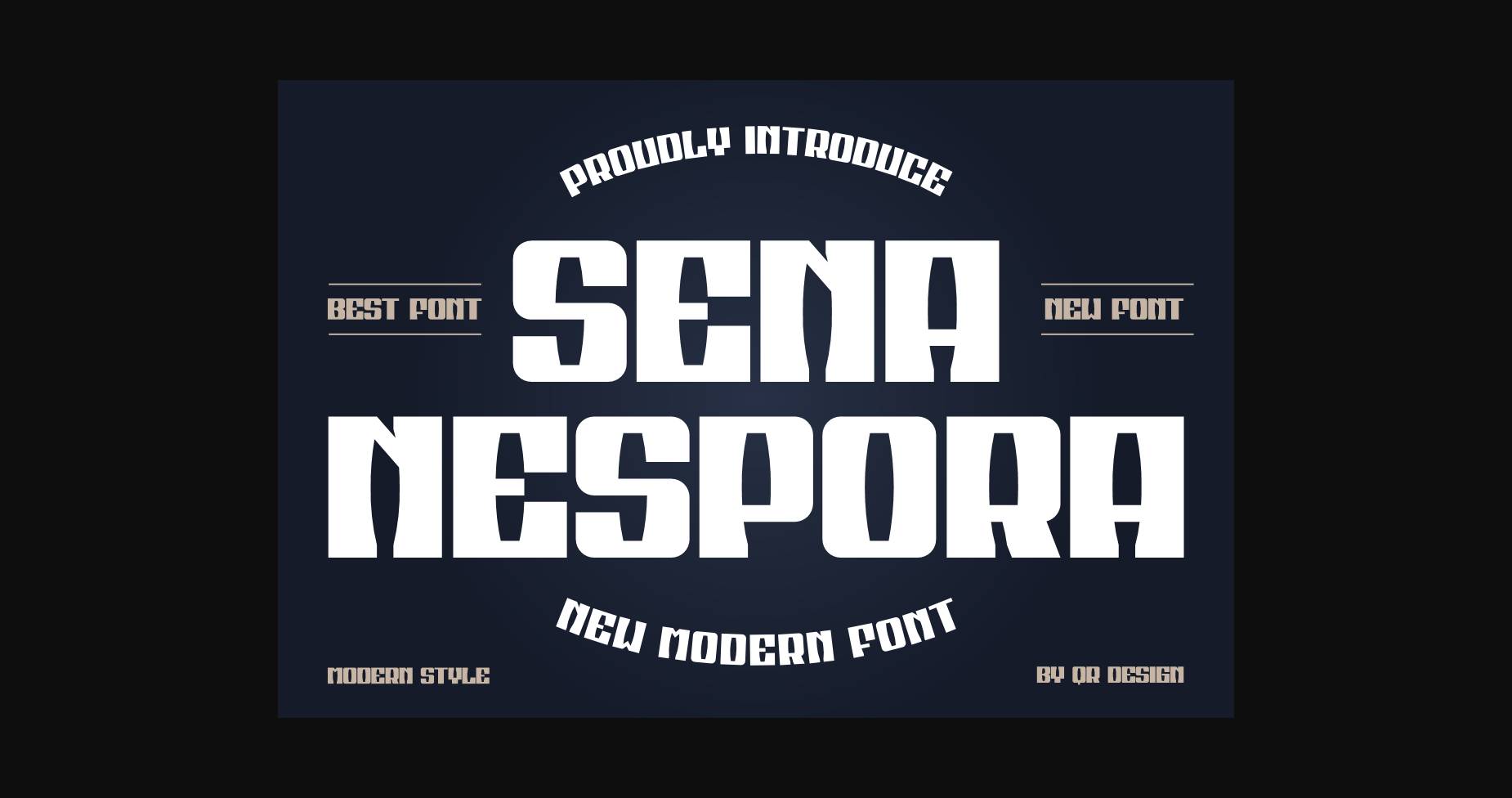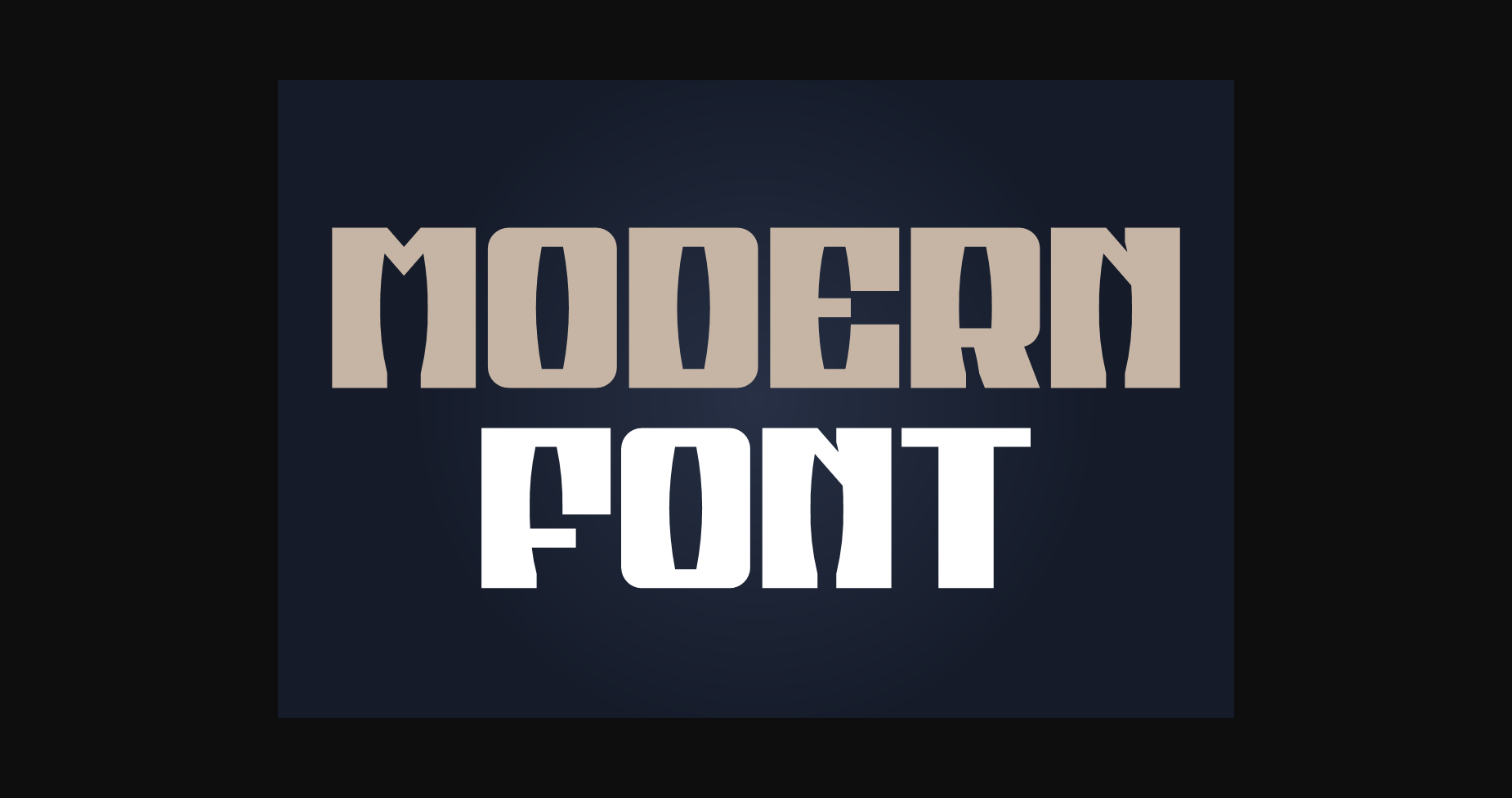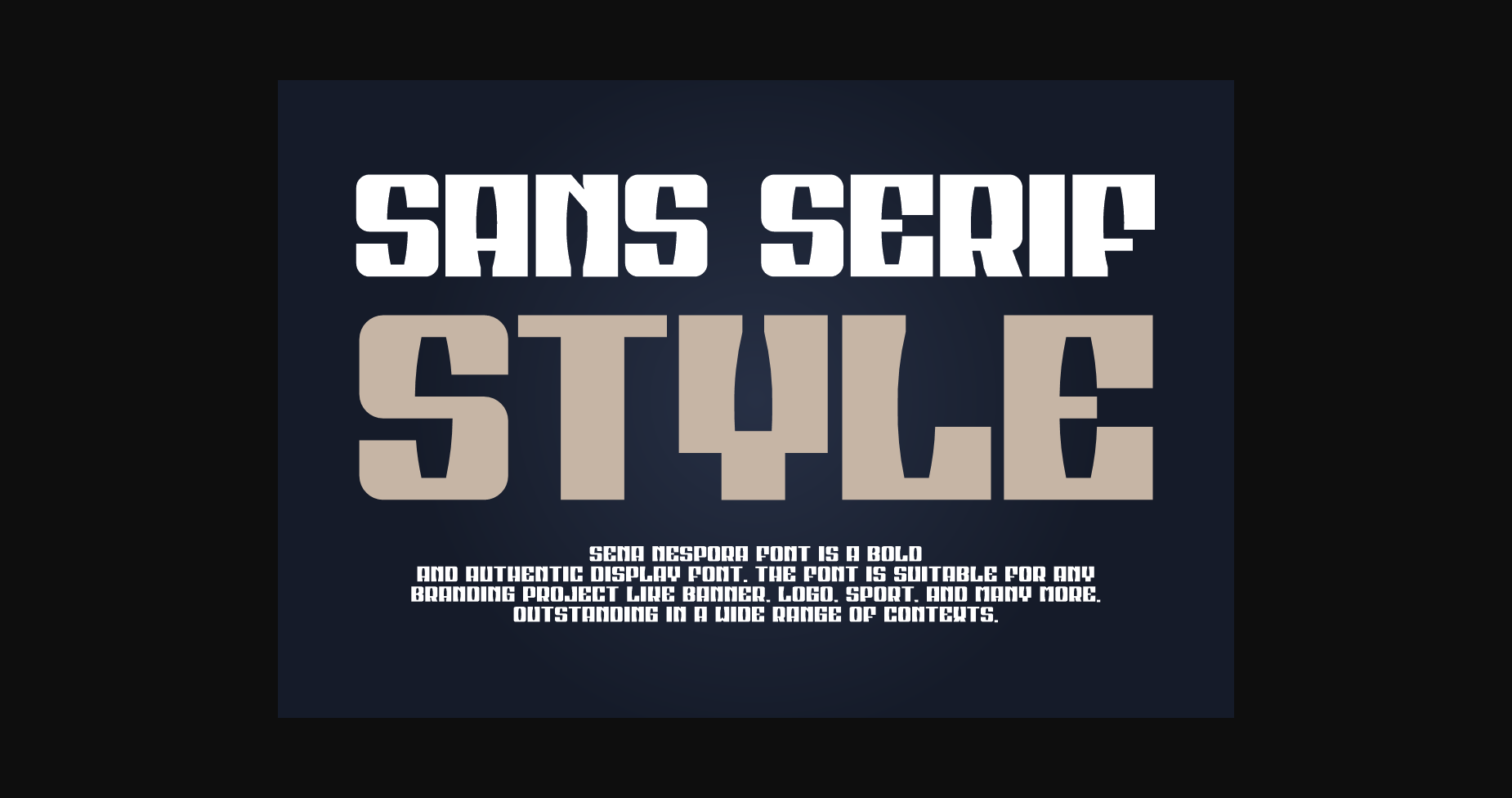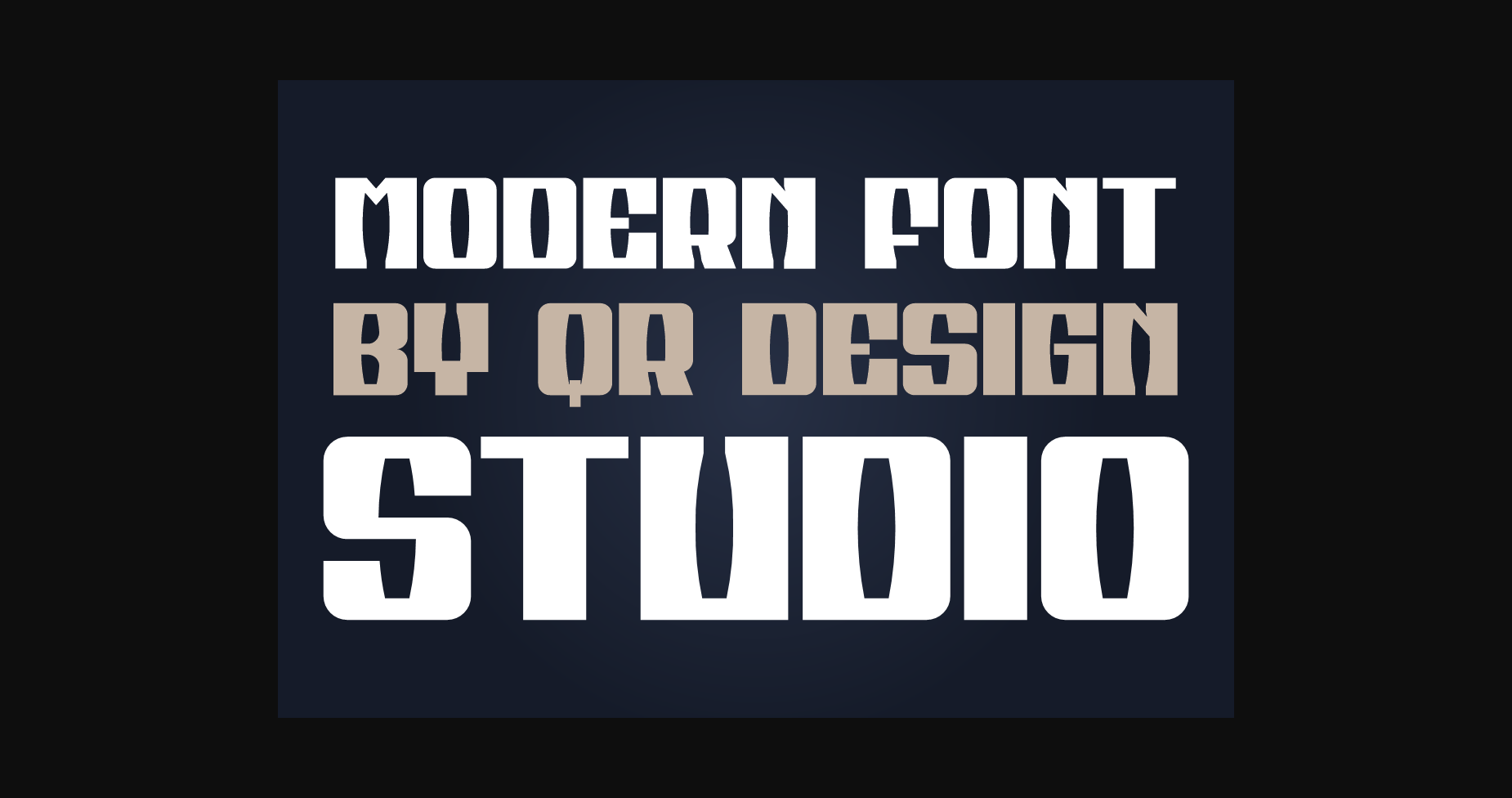
About Sena Nespora Font
Sena Nespora Font is a bold and authentic display font.
The font is suitable for any branding project like logos, sports, and many more.